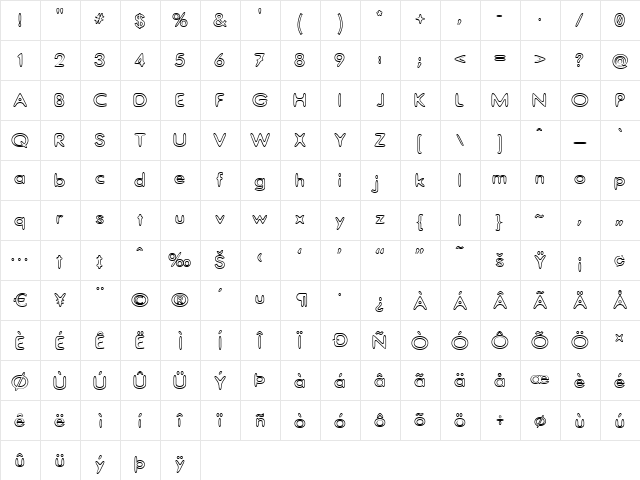
Thorazone Regular
| Designer | Graham Meade |
Design Context for Thorazone Typeface
Thorazone takes a measured approach to typography — its balanced proportions and neutral character make it a reliable workhorse for both digital and print work.